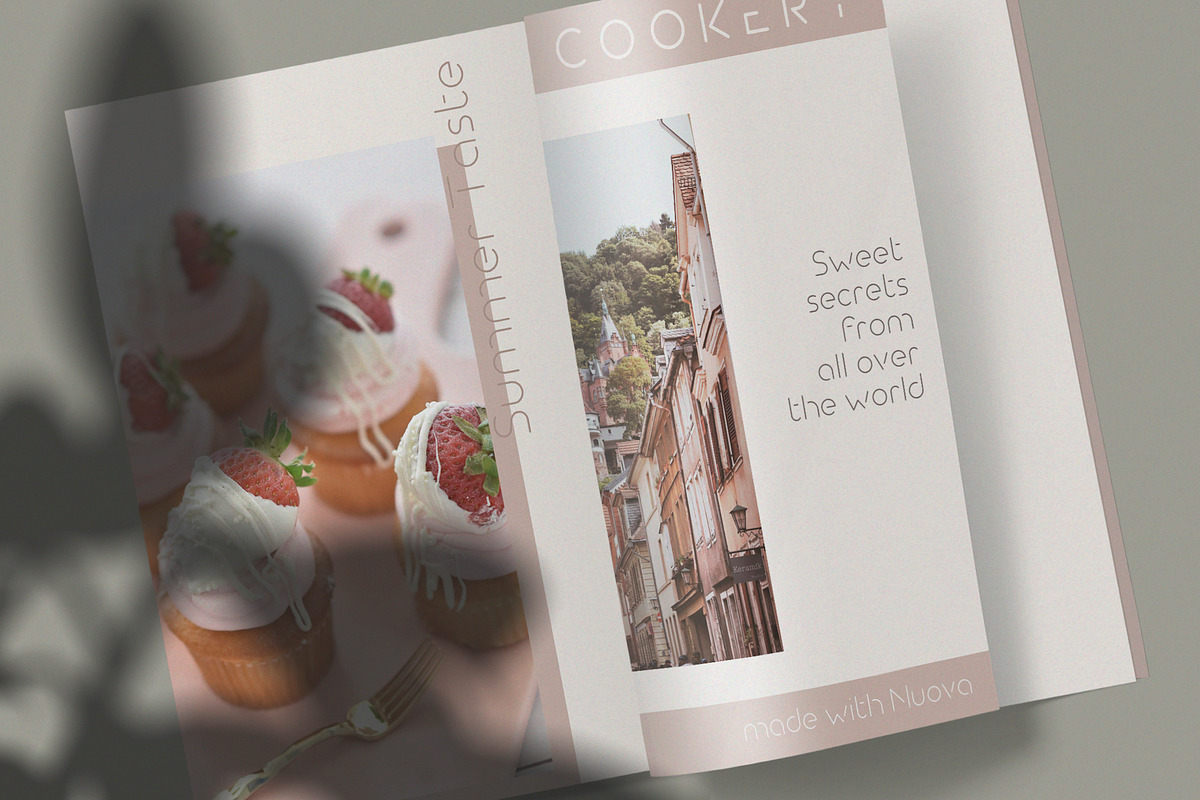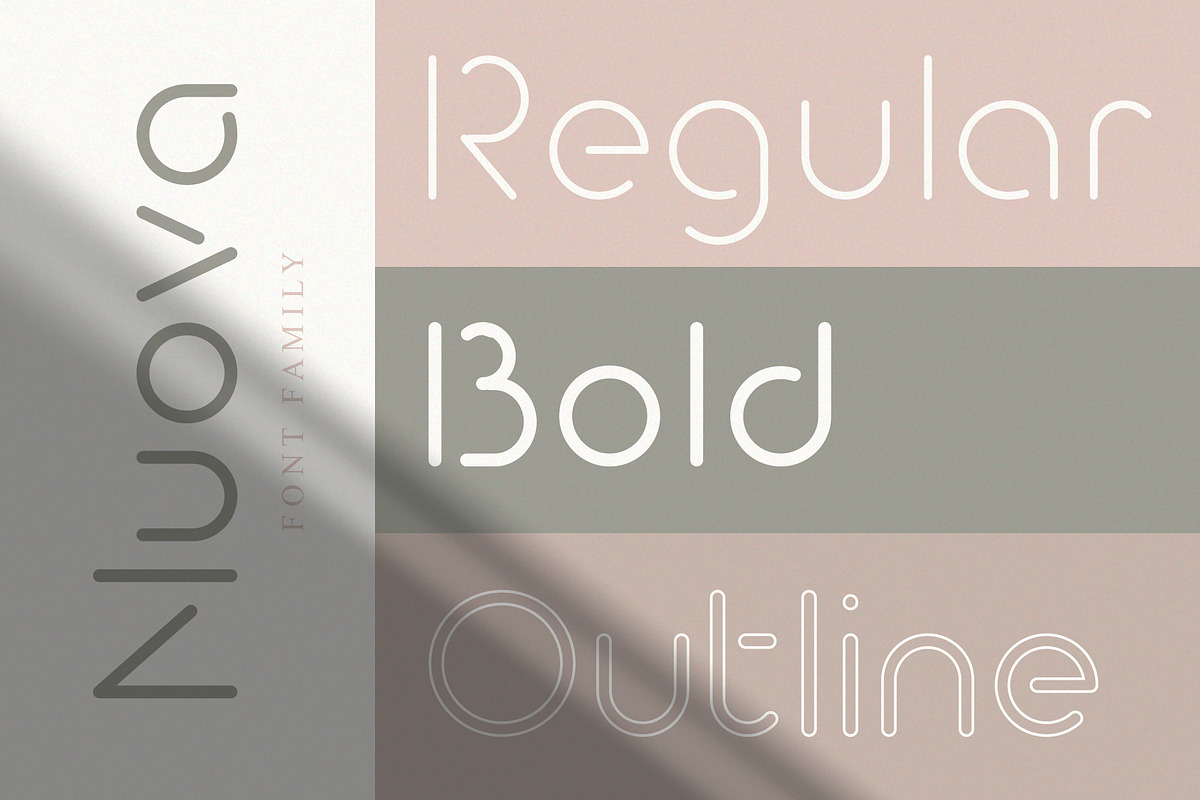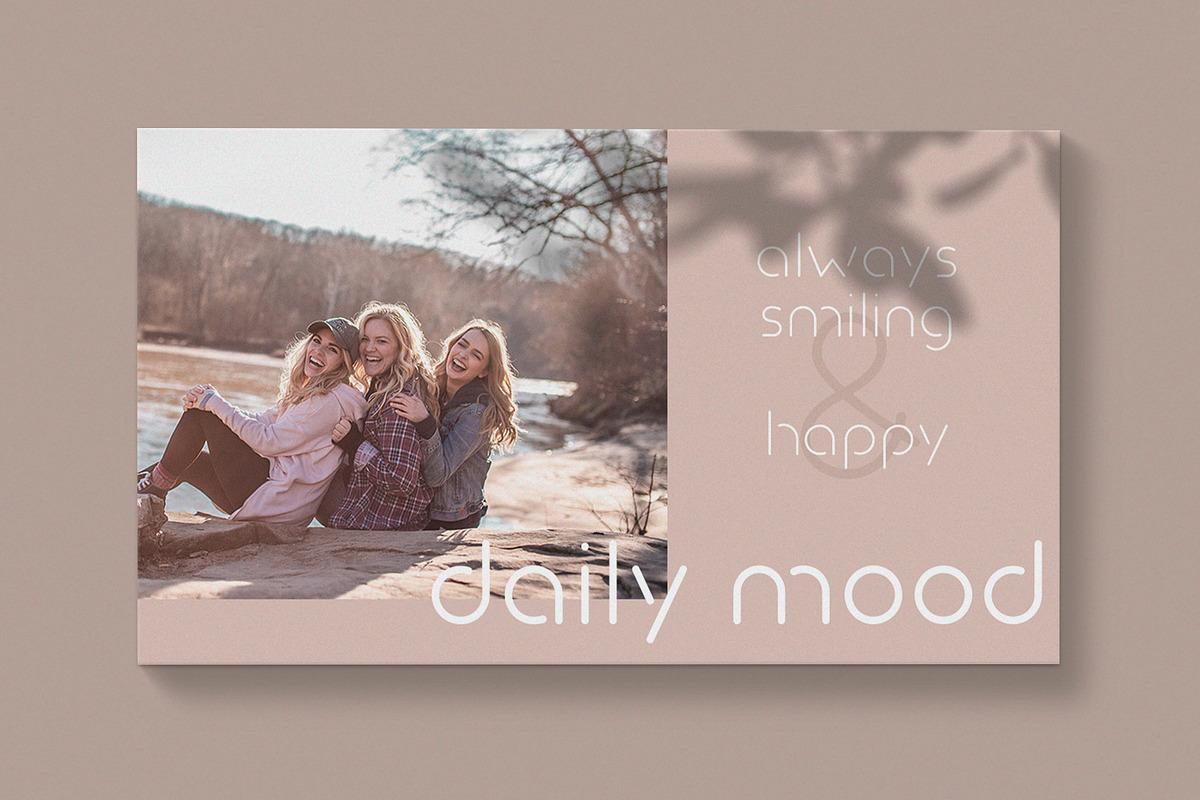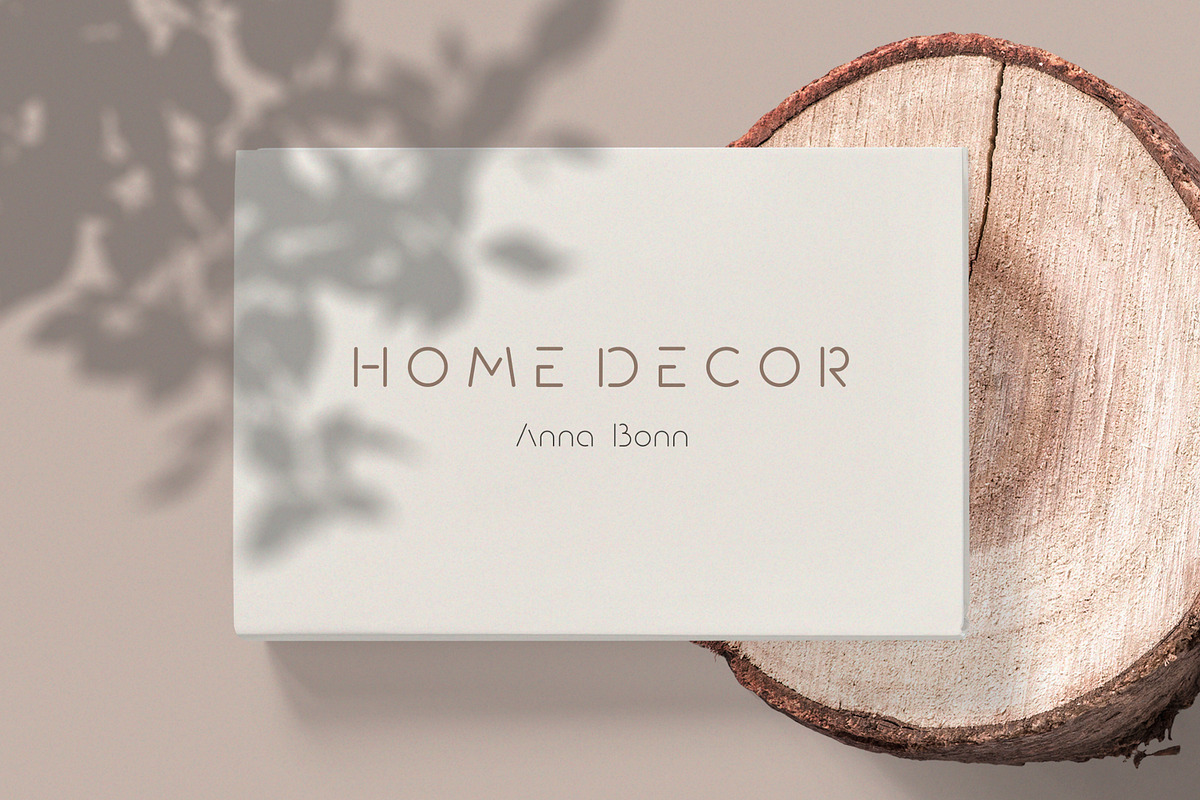
Nuova - Modern Round Stencil Font
Nuova is sans serif round stencil font family that is very universal and modern at the same time. It is perfect for designers looking to leave an impression. A simple but significant. Nuova has minimal design. The owner of endless possibilities. Nuova is great for magazine publishing, works great in posters, flyers, logos, headlines, packaging, advertising, branding and so much more.
Nuova hosts 3 different styles:
Every font has uppercase, lowercase letters, numbers & basic punctuation, multilingual support (French, German, Italian, Norwegian, Portuguese, Spanish, Swedish, Swiss German).
- Nuova Regular
- Nuova Bold
- Nuova Outline